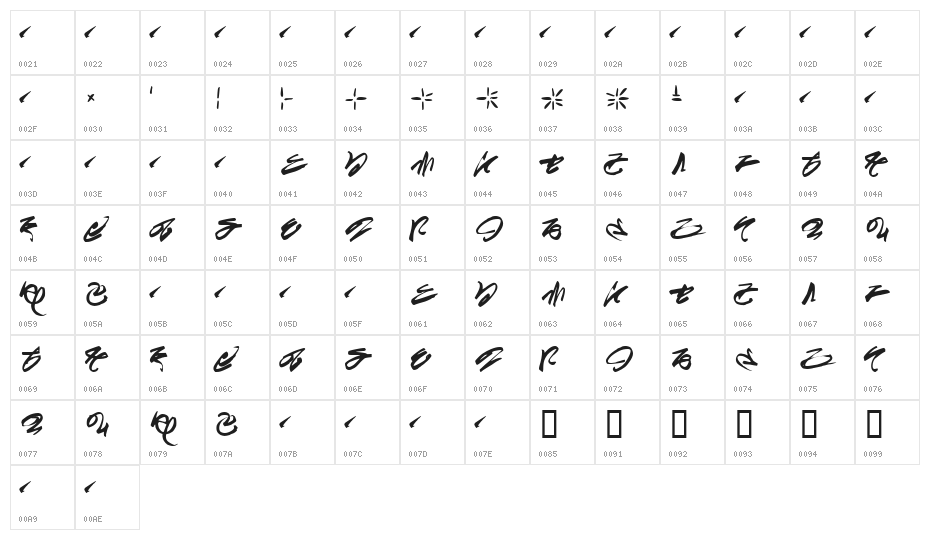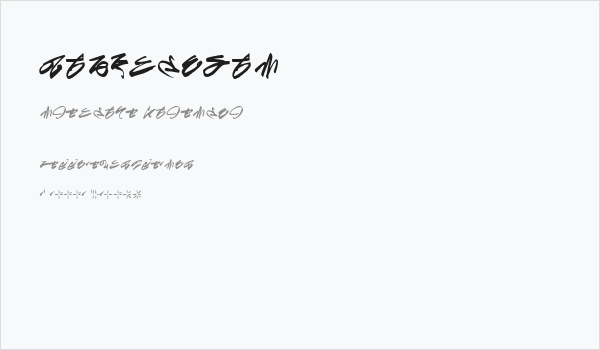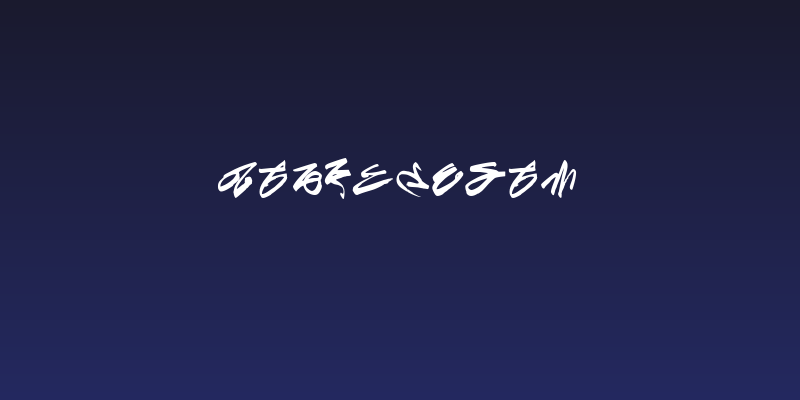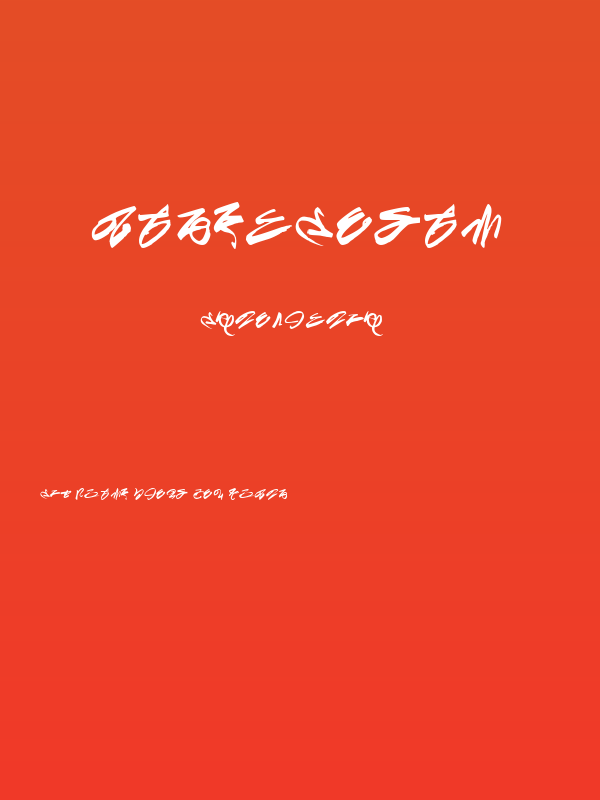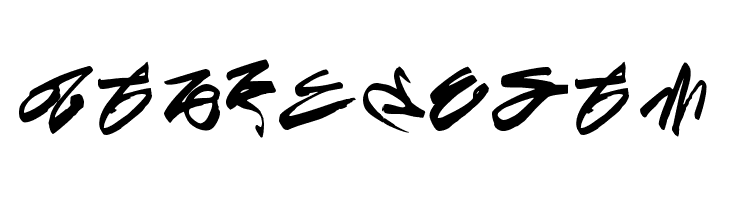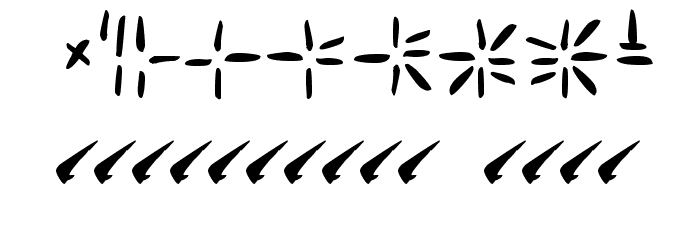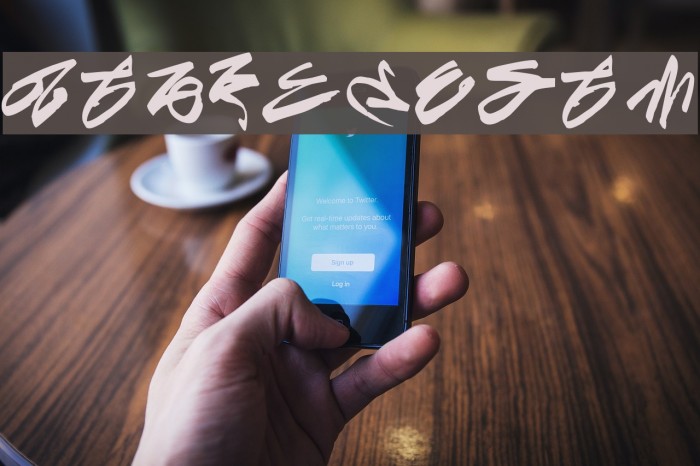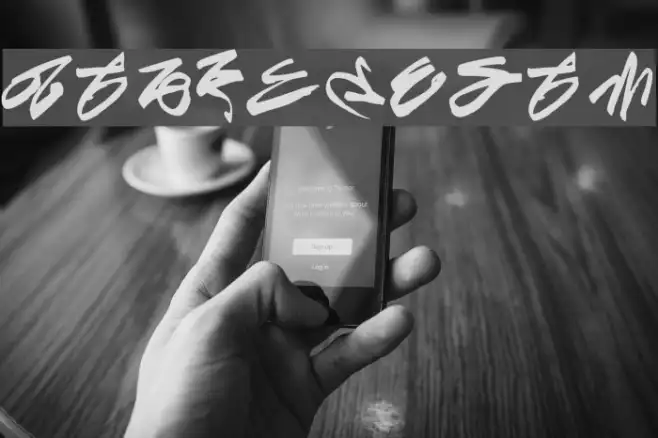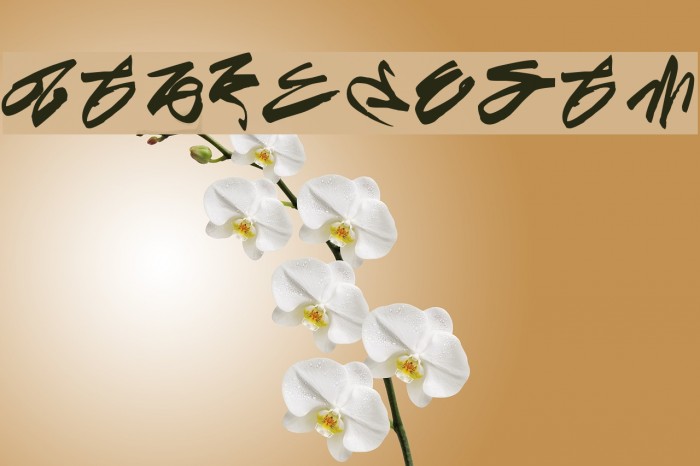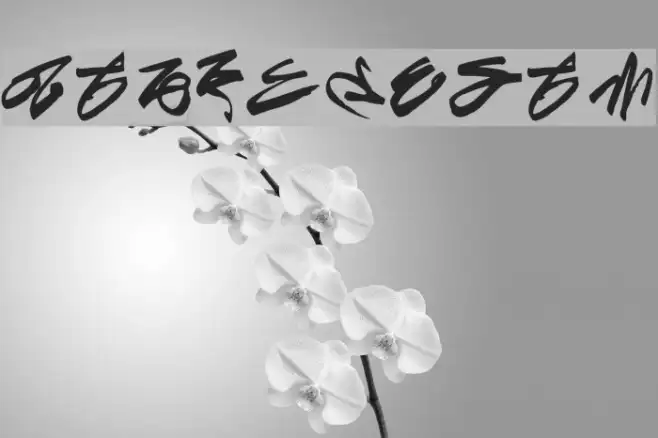
Miskatonic Font
Miskatonic Description
This font features a highly stylized and artistic script that resembles calligraphy with a modern twist. The characters are fluid and dynamic, with sweeping curves and sharp angles that give it a sense of motion and energy. The strokes vary in thickness, creating a dramatic contrast that enhances its visual appeal. The overall design is intricate and decorative, making it suitable for creative and expressive projects. The unique style of each letter adds a personal touch, making it ideal for artistic endeavors.
| Use Case | Logos, Artistic projects, Invitations |
| Proposed Projects | Ideal for invitations, artistic posters, branding for creative businesses, and expressive design projects. |